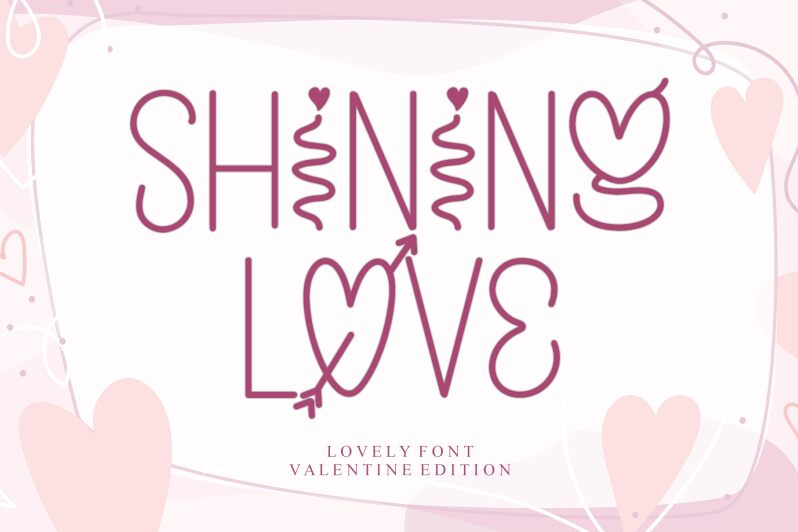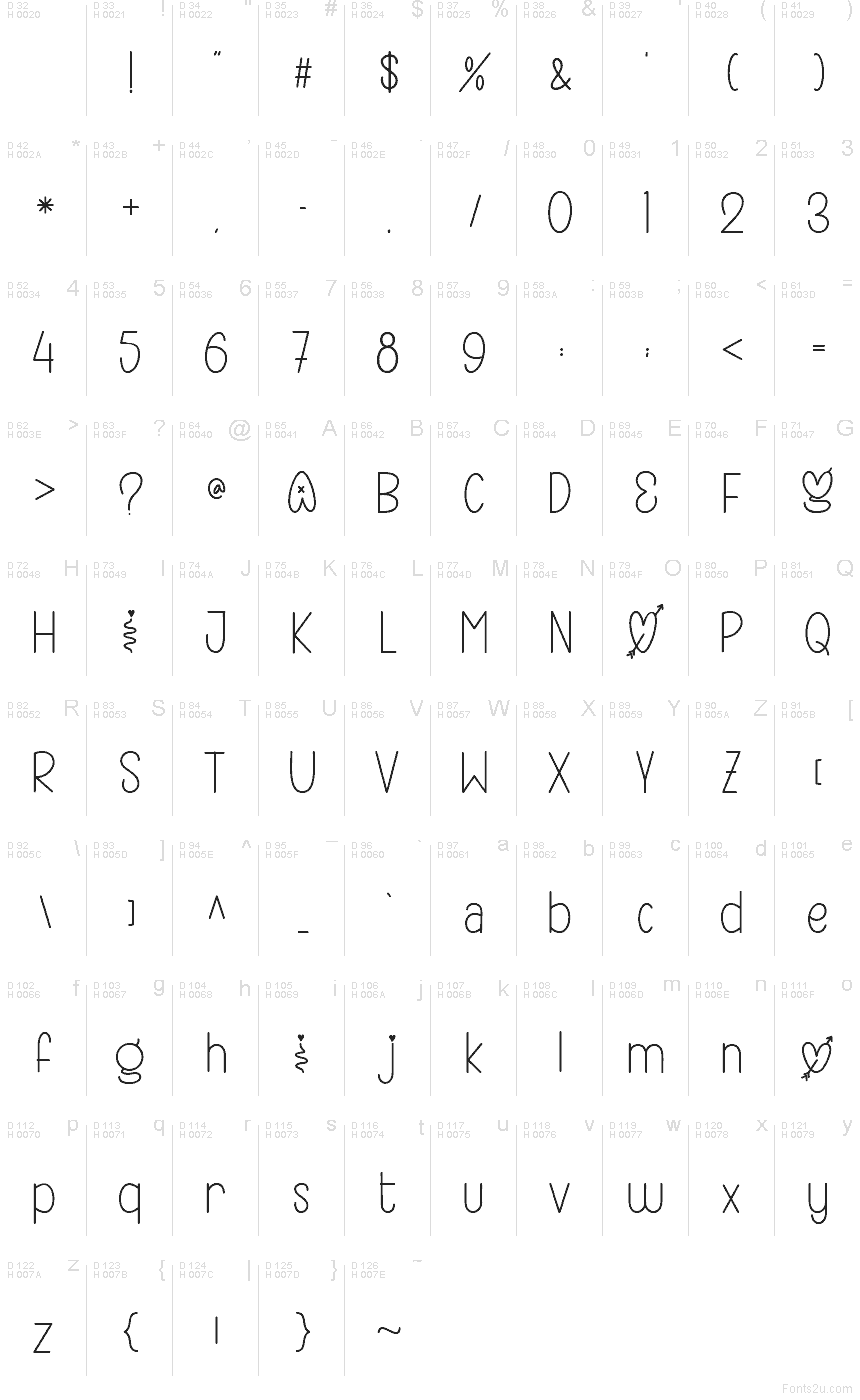
SHINING LOVE - Personal Use
Shining Love font by Letterafa Studio is a free Valentine holiday decorative font that turns every word into a doodled love note. Tall, slender letters twist into heart shapes and playful arrows, with a hand-drawn line quality that feels like it was sketched on a card seconds before being gifted. The airy spacing keeps all those details readable, even when the letters curl and loop around each other.
Using Shining Love, your text instantly feels flirty and light-hearted, making this free font a natural fit for Valentine cards, wedding stationery, romantic quotes, party invitations, gift tags, and cute social media posts. It shines on packaging for sweets or handmade gifts, where the curly strokes echo ribbons and wrapping. For balance, pair it with a simple sans serif in small text and let Shining Love handle short phrases or headings at larger sizes.